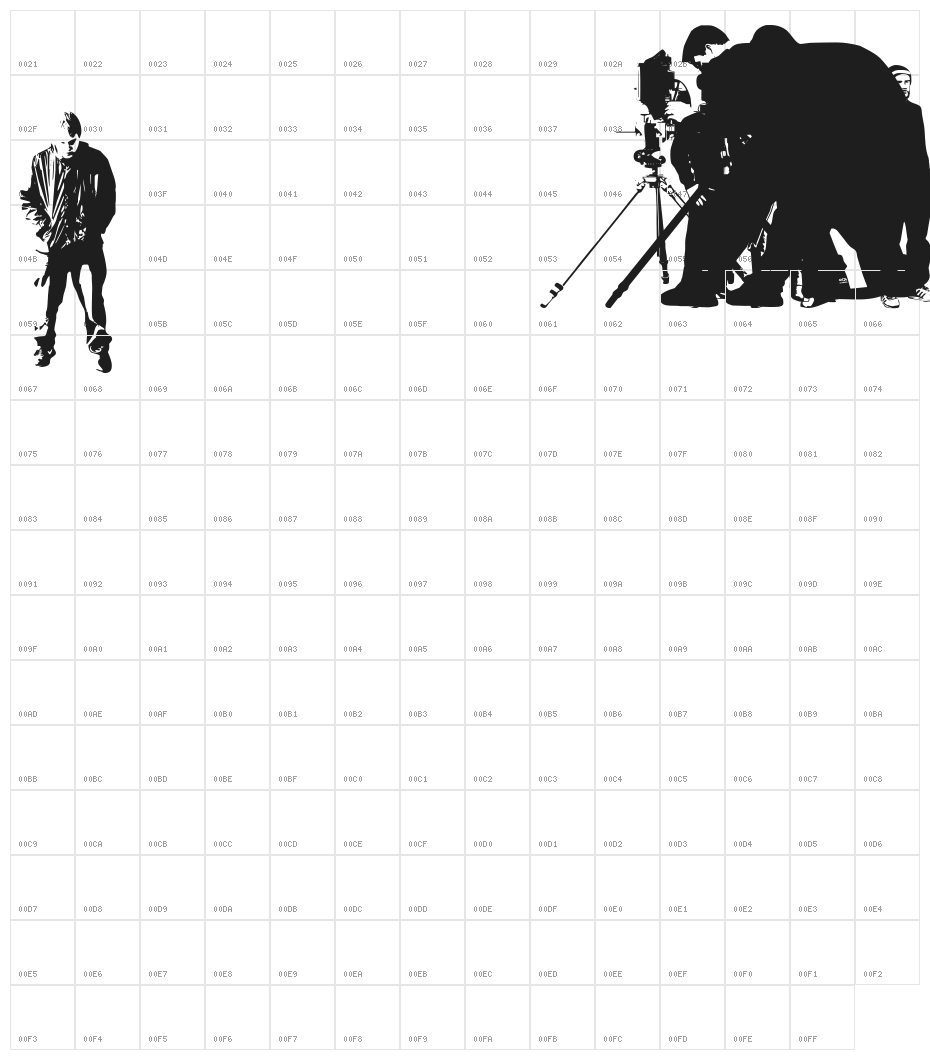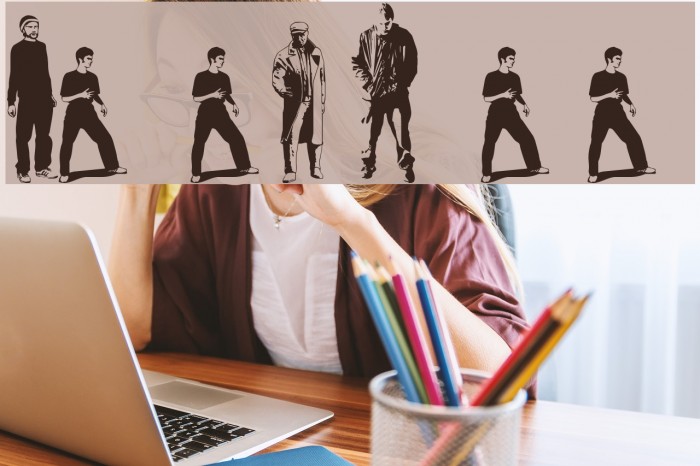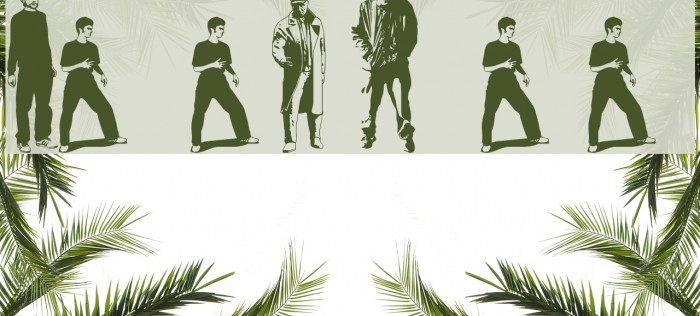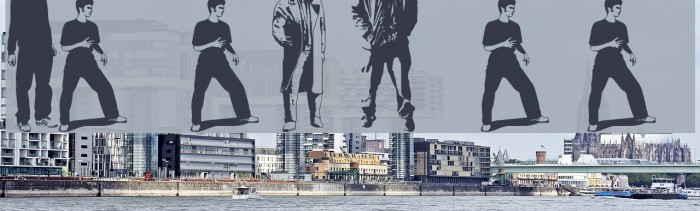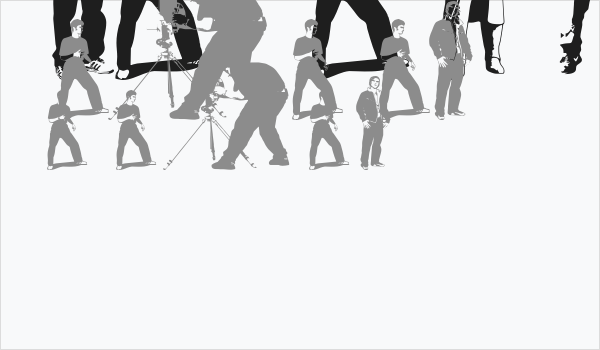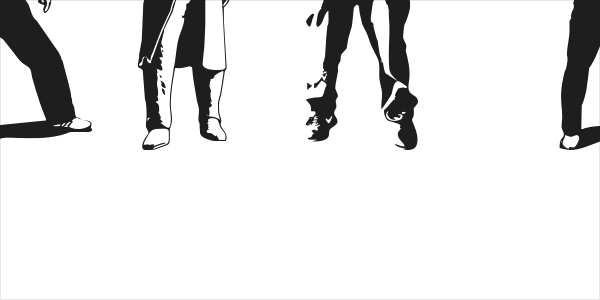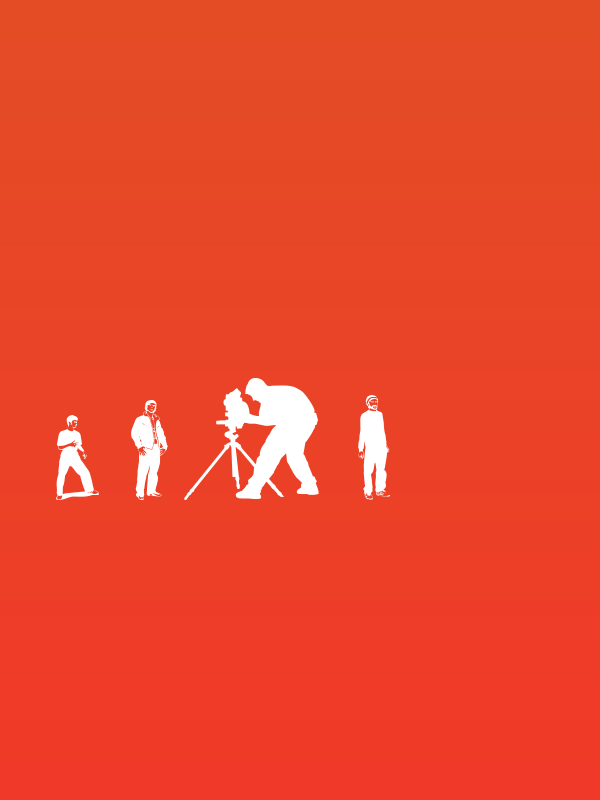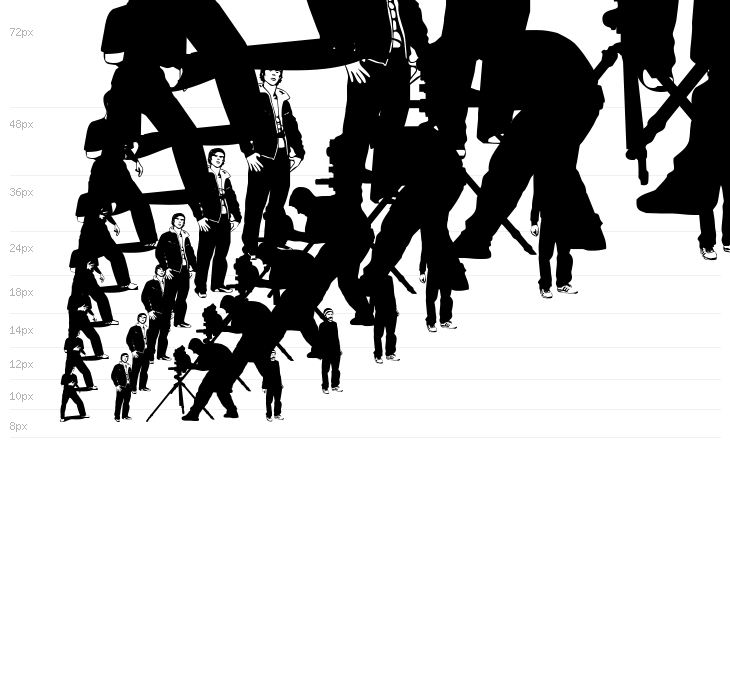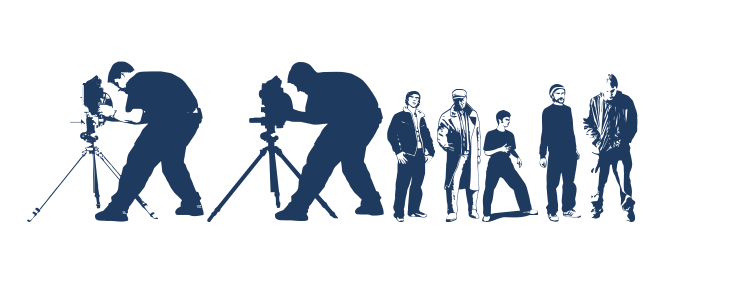
fenotype dings # people 0.5 Font
fenotype dings # people 0.5 Description
A collection of black and white silhouette-style illustrations depicting people in various poses, including standing, walking, and using a camera tripod. The figures are detailed and realistic, with strong contrast and no text elements.
| Overall Style | Decorative, Realistic |
| Use Case | Decorative elements, icons, illustrative accents |
| Proposed Projects | Posters, editorial illustrations, infographics, website accents, educational materials. |